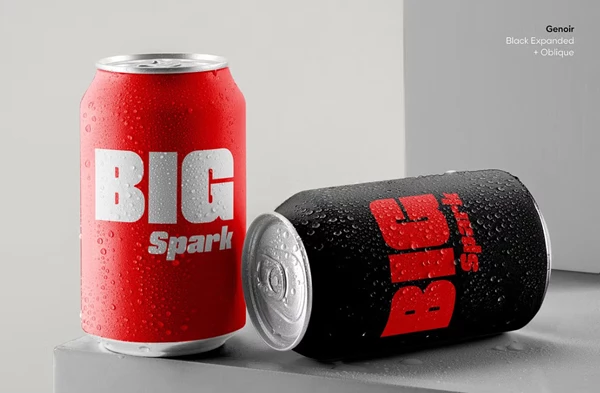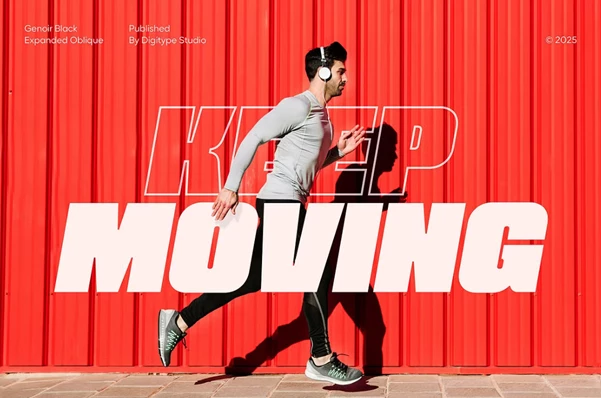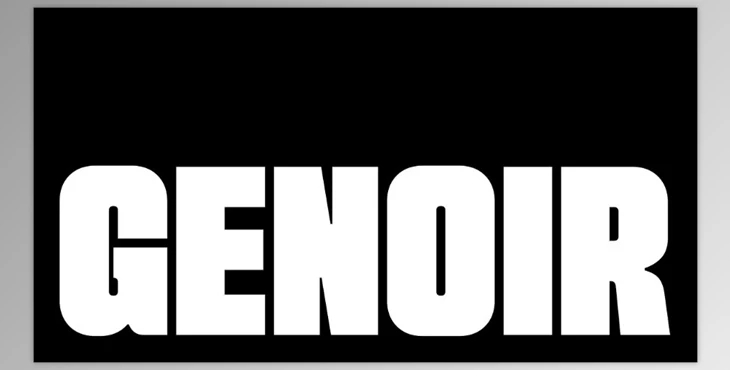
Genoir Bold Display Font Family:
The Genoir font family is a modern, expressive family of fonts. Genoir is both sophisticated and impactful, making it the ideal typeface for designers seeking to add character to their work. Its expressive qualities are relevant across many design fields.
The Genoir typeface features four different styles, Condensed and Expanded, each with an Oblique version, making it the perfect versatile font for any project. Use it on posters or magazines, in high-end fashion projects or product design and packaging, or even for digital needs, and you can be assured that Genoir will add a unique and memorable quality to your work. Genoir's stylistic approach will ensure your aesthetic is not only a separator but also an unforgettable accomplishment.